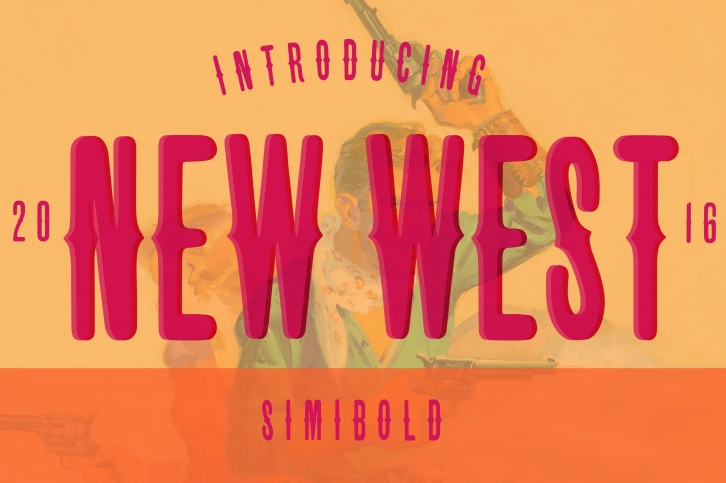
Howdy Partner! Here you go lookin at a fine typeface created just for your next print piece just like the good lord made guns for shootin up critters in tha west.
Blow up your next design to high heaven with this one shot kill of a font. Big Letters and Small letters numbers too. Mostly for display and logotypes. Get on it cowboy and ride this font into the sunset called success. Get now ya hear.